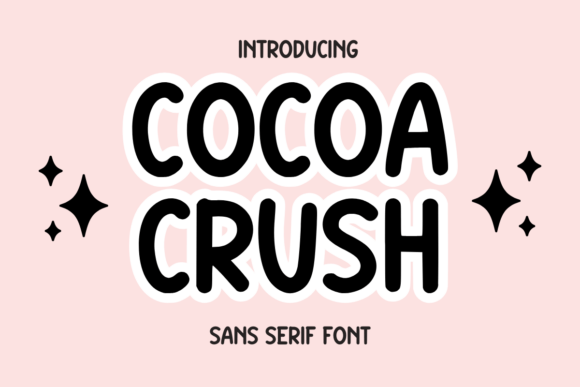
Cocoa Crush Font: The Perfect Playful Sans-Serif Font for Your Creative Projects
The Cocoa Crush Font is a delightful and charming sans-serif font that has been gaining popularity among designers, writers, and crafters alike. Its playful and whimsical design makes it an ideal choice for a wide range of creative projects, from personal to professional use. In this article, we’ll explore the features and benefits of the Cocoa Crush Font and how it can add a touch of charm to your memos, journals, notes, planners, and more.
What is Cocoa Crush Font?
The Cocoa Crush Font is a modern sans-serif font designed with a playful and friendly approach. Its clean and simple lines make it easy to read, while its unique and quirky style adds a touch of personality to any project. The font is highly versatile and can be used for both personal and professional purposes, making it a great addition to any designer’s or writer’s toolkit.
Features of Cocoa Crush Font
The Cocoa Crush Font has several features that make it an attractive choice for designers and writers. Some of its key features include:
- Playful and whimsical design
- Clean and simple lines for easy readability
- Highly versatile for use in various projects
- Perfect for personal and professional use
- Great for memos, journals, notes, planners, and more
Uses of Cocoa Crush Font
The Cocoa Crush Font is perfect for a variety of uses, including:
- Memos and notes
- Journals and diaries
- Planners and calendars
- KDP interiors and printables
- Greeting cards and invitations
- Scrapbooks and photo albums
- Daily planners and to-do lists
- Workbooks and templates
This font is ideal for teachers, daily planners, notepads, calendars, to-do lists, workbooks, and templates. It adds charm to weekly and monthly planners, notebook paper, and more.
Benefits of Using Cocoa Crush Font
The Cocoa Crush Font offers several benefits to designers, writers, and crafters. Some of its key benefits include:
- Unique and eye-catching design
- Easy to read and understand
- Highly versatile for use in various projects
- Perfect for personal and professional use
- Adds a touch of charm and personality to projects
Who Can Use Cocoa Crush Font?
The Cocoa Crush Font is perfect for a wide range of users, including:
- Teachers and educators
- Designers and writers
- Crafters and scrapbookers
- Daily planners and organizers
- Small business owners and entrepreneurs
- Anyone looking for a playful and stylish font
Tips for Using Cocoa Crush Font
Here are some tips for using the Cocoa Crush Font effectively:
- Use it for headings and titles to add a touch of personality
- Pair it with other fonts to create a unique and eye-catching design
- Use it for body text to add a playful and whimsical touch
- Experiment with different colors and textures to enhance the font’s design
The Cocoa Crush Font is a delightful and charming sans-serif font that is perfect for a wide range of creative projects. Its playful and whimsical design makes it an ideal choice for designers, writers, and crafters alike. With its highly versatile design and easy-to-read lines, this font is sure to add a touch of charm and personality to any project. Whether you’re a teacher, designer, or crafter, the Cocoa Crush Font is a great addition to your toolkit.
- What is the Cocoa Crush Font? The Cocoa Crush Font is a modern sans-serif font designed with a playful and friendly approach.
- What is the Cocoa Crush Font used for? The Cocoa Crush Font is perfect for a variety of uses, including memos, journals, notes, planners, KDP interiors, greeting cards, invitations, scrapbooks, diaries, and printables.